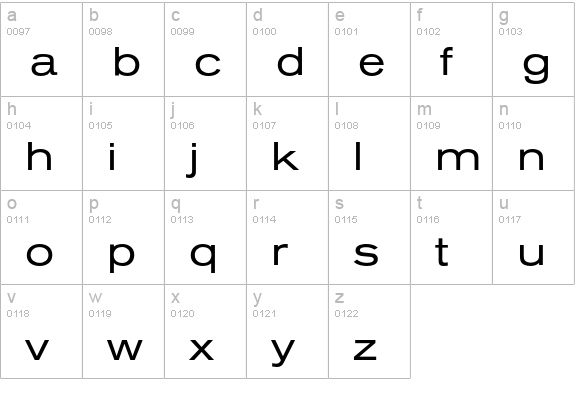
Berthold Akzidenz Grotesk BE Extended is a distinctive, extended-width variant in the Berthold typeface family \xE2\x80\x94 well suited to design and typography projects.
The Berthold Akzidenz Grotesk BE Extended font is a classic and versatile typeface that exudes simplicity and elegance. With its clean lines and timeless design, this font is perfect for a wide range of design projects, from branding to editorial layouts. The extended version of the font offers added flexibility and style, making it a great choice for headlines and display purposes. One of the best things about the Berthold Akzidenz Grotesk BE Extended font is that it is available for free download at FontsMarket.com. This means that you can easily access and use this high-quality font in your projects without any cost. Whether you are a professional designer or just starting out, having access to such a reliable and well-crafted font can truly elevate your work. Download the Berthold Akzidenz Grotesk BE Extended font today and see the difference it can make in your designs!